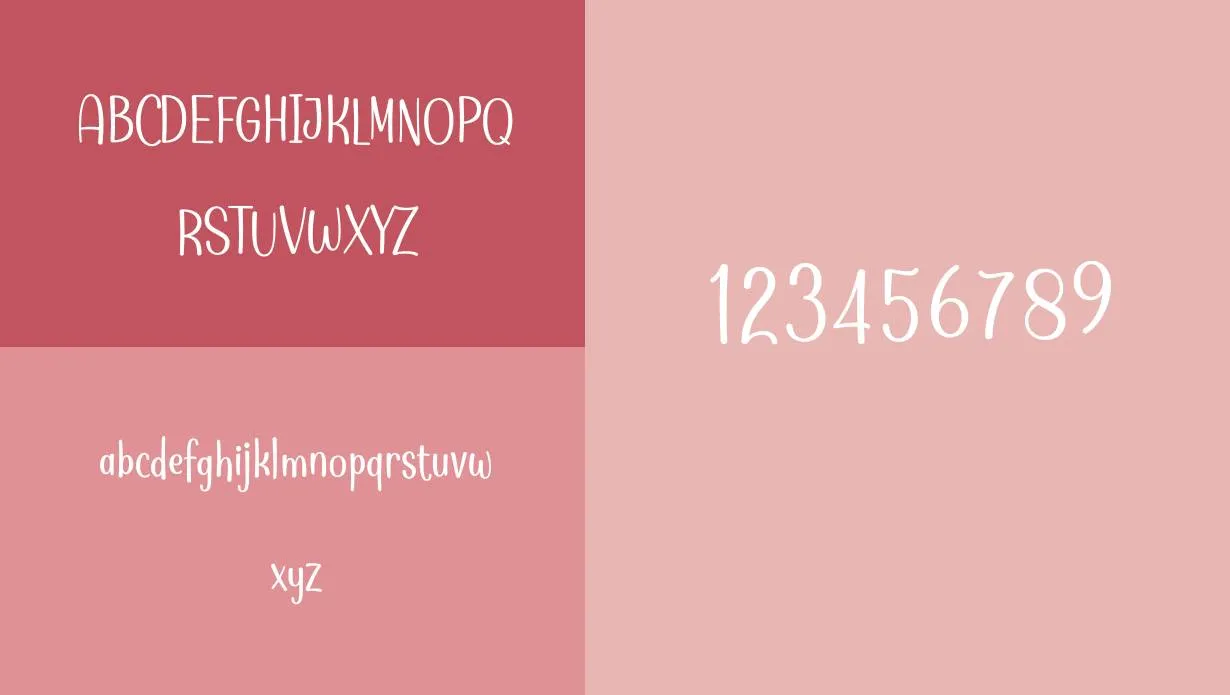
The Cuttie font is like a playful doodle for your words. With its cute and quirky design, it’s perfect for creating adorable greeting cards, designing fun product labels, or adding a touch of whimsical charm to your branding.
This font has a medium weight and standard width, ensuring your words look charming and delightful. Imagine using the Cuttie font for a children’s book cover, turning your text into a whimsical adventure.